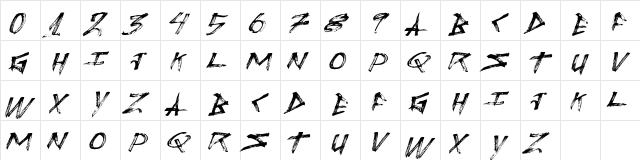
ModernReality Regular
Design Context for ModernReality Typeface
ModernReality is a composed and adaptable typeface that performs quietly and consistently across a wide range of design contexts.
Pro Tip: Pair ModernReality with a font of contrasting weight or personality to build a more expressive typographic hierarchy.